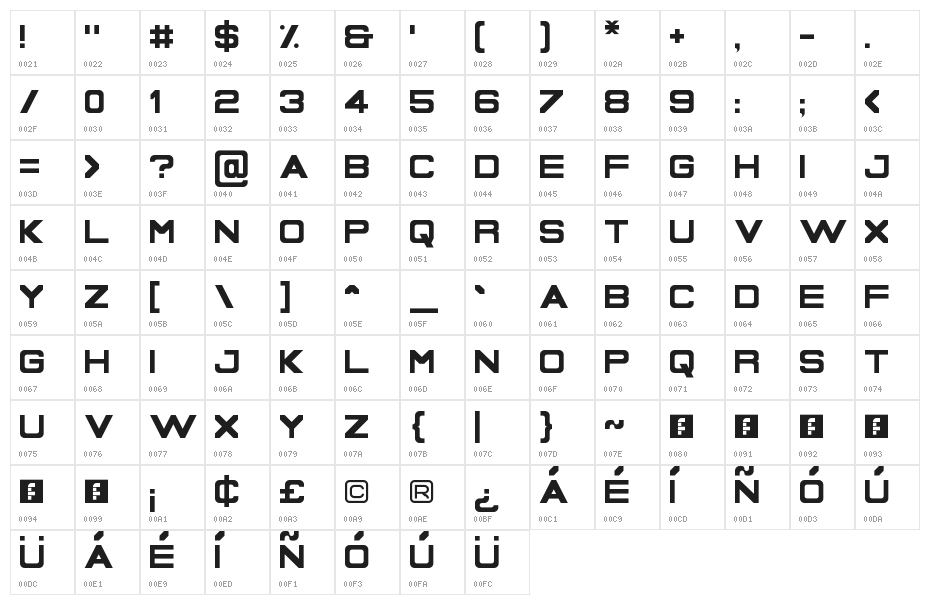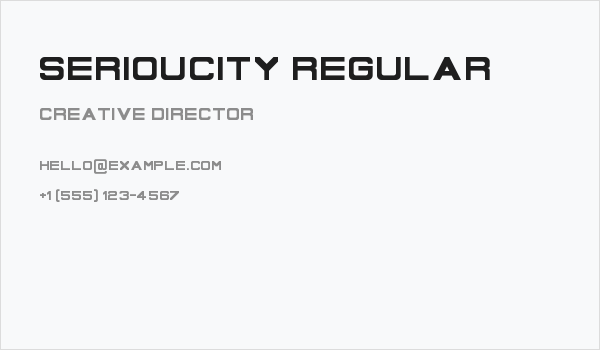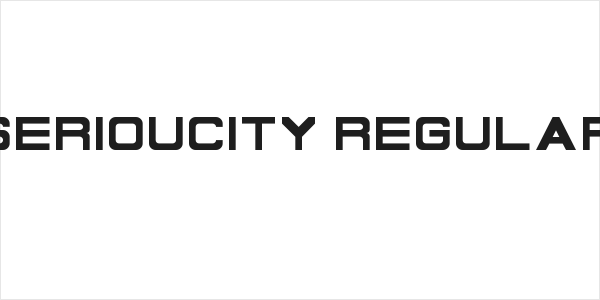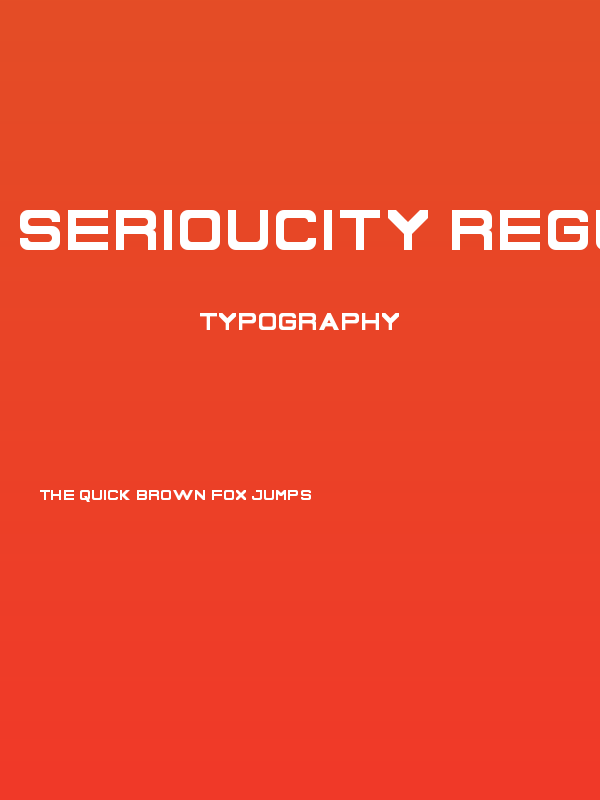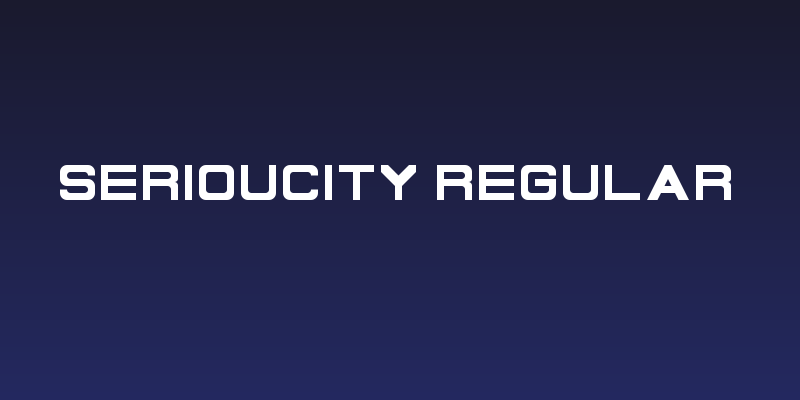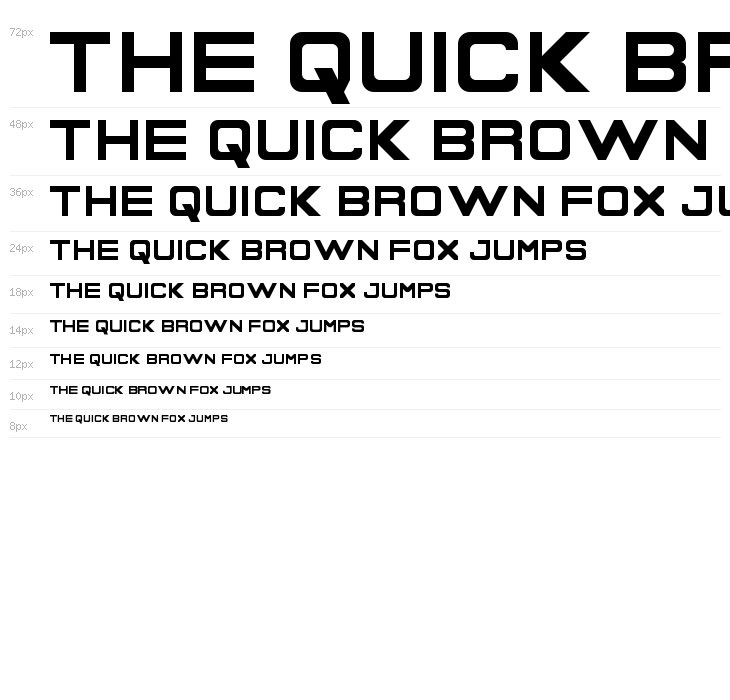
Serioucity Regular Font
Serioucity Regular Description
This font features a bold and geometric design with a modern and futuristic appeal. The characters are constructed with sharp angles and clean lines, creating a sense of precision and strength. The uppercase letters are uniform in height, while the lowercase letters maintain a consistent style that complements the uppercase. The numerals are equally bold, ensuring readability and impact. Special characters are designed to match the overall aesthetic, making this font versatile for various applications. Its strong presence makes it ideal for projects that require a contemporary and assertive look.
| Proposed Projects | Ideal for technology branding, video game titles, posters, and modern web design. |